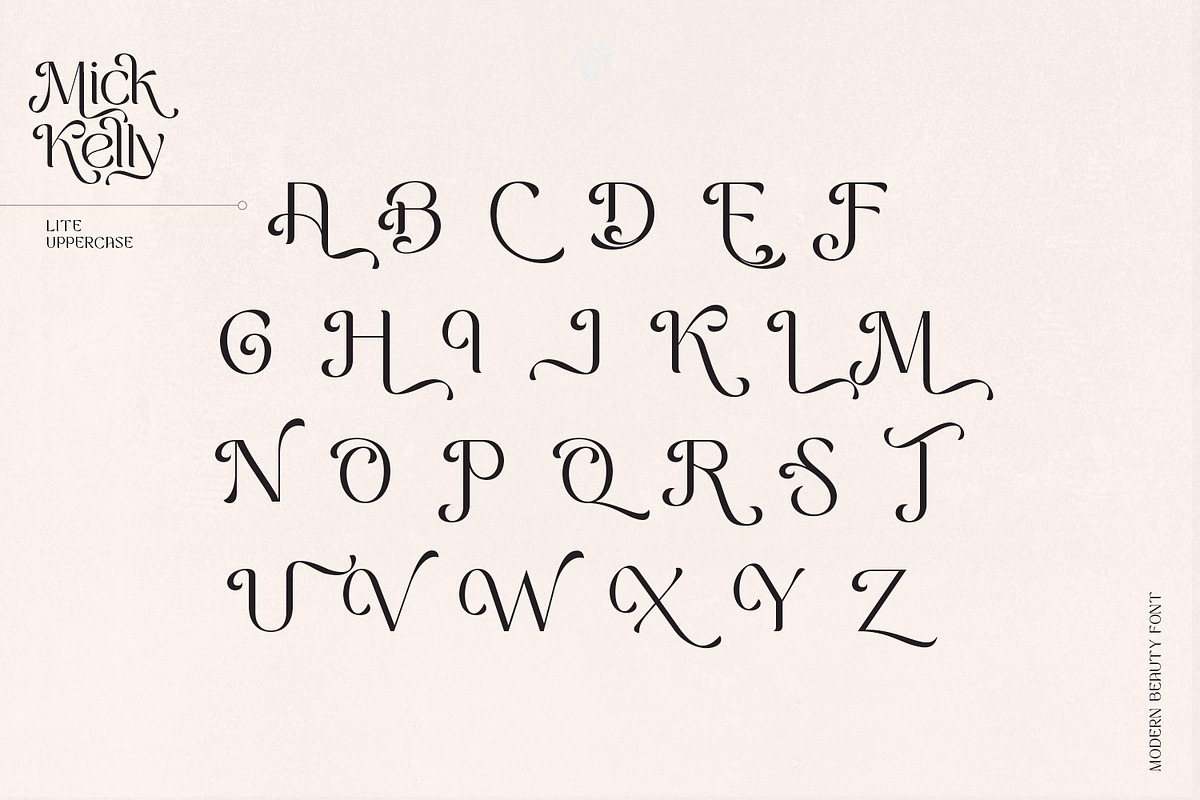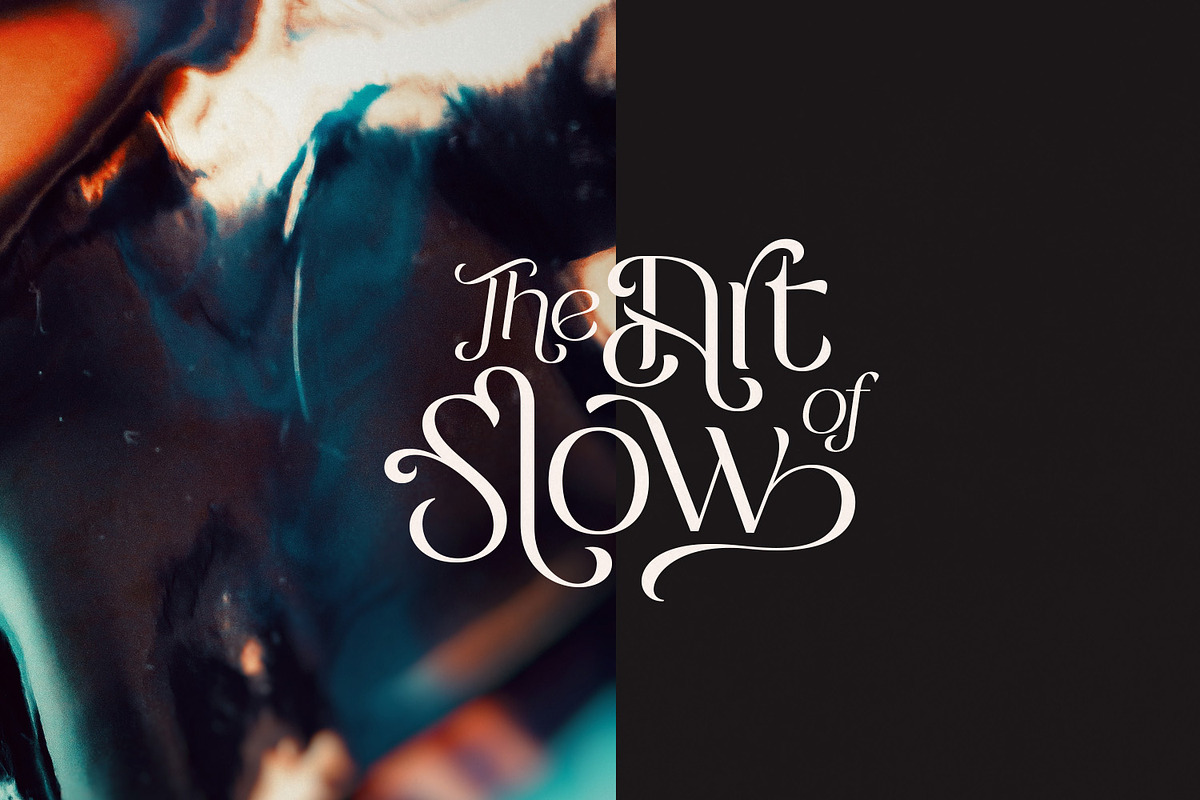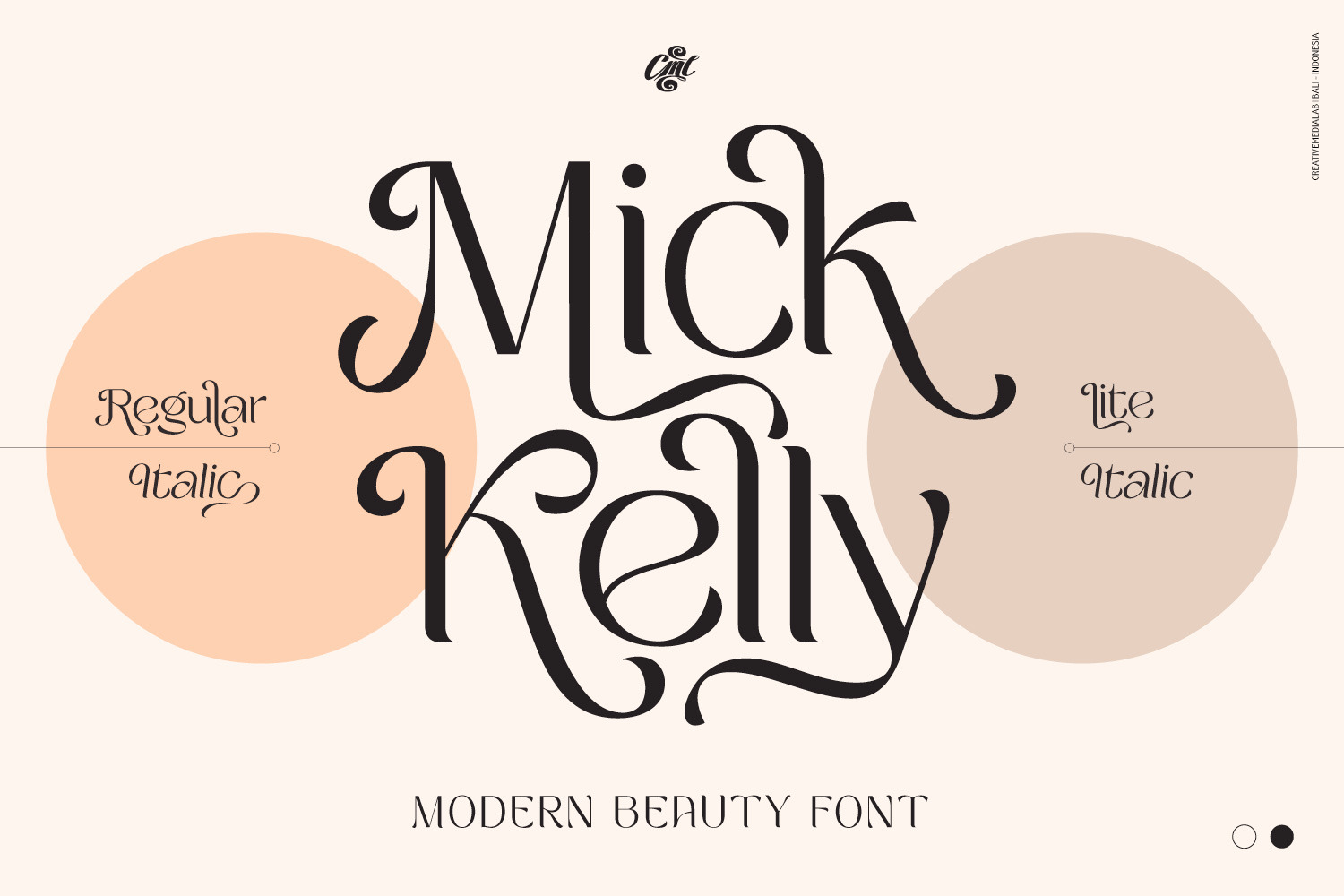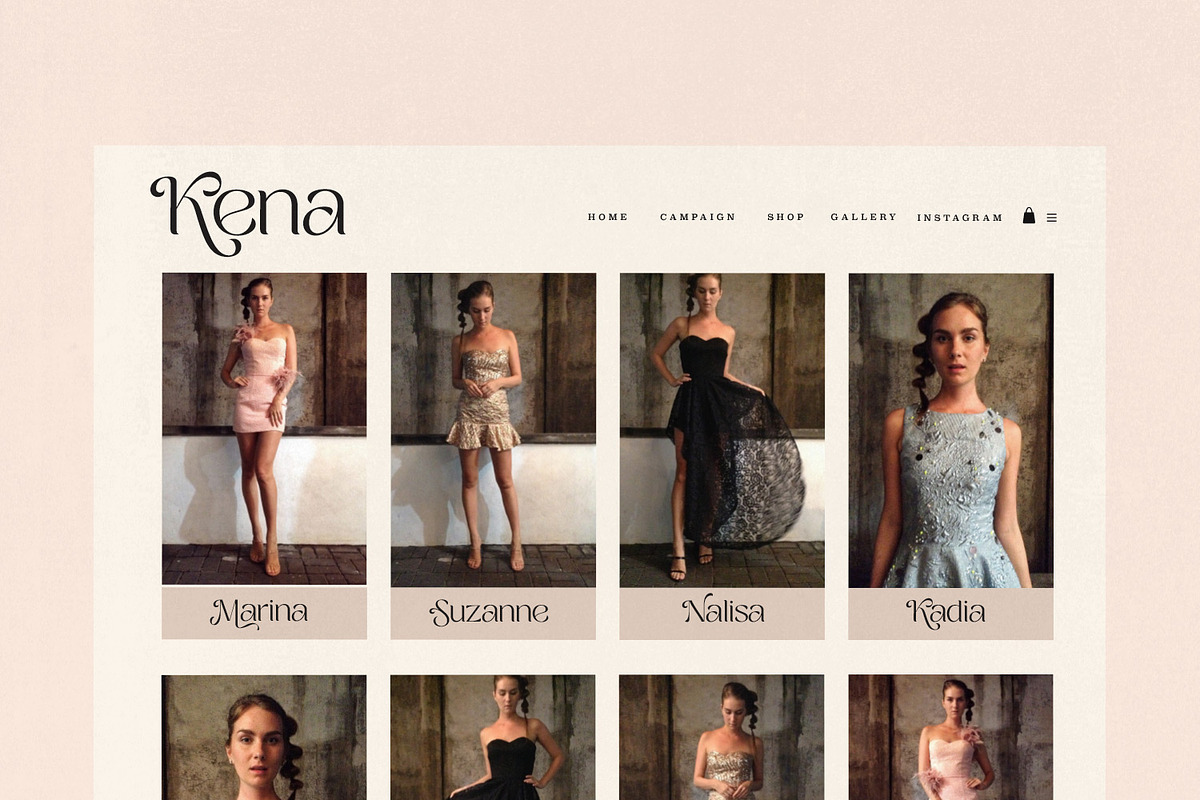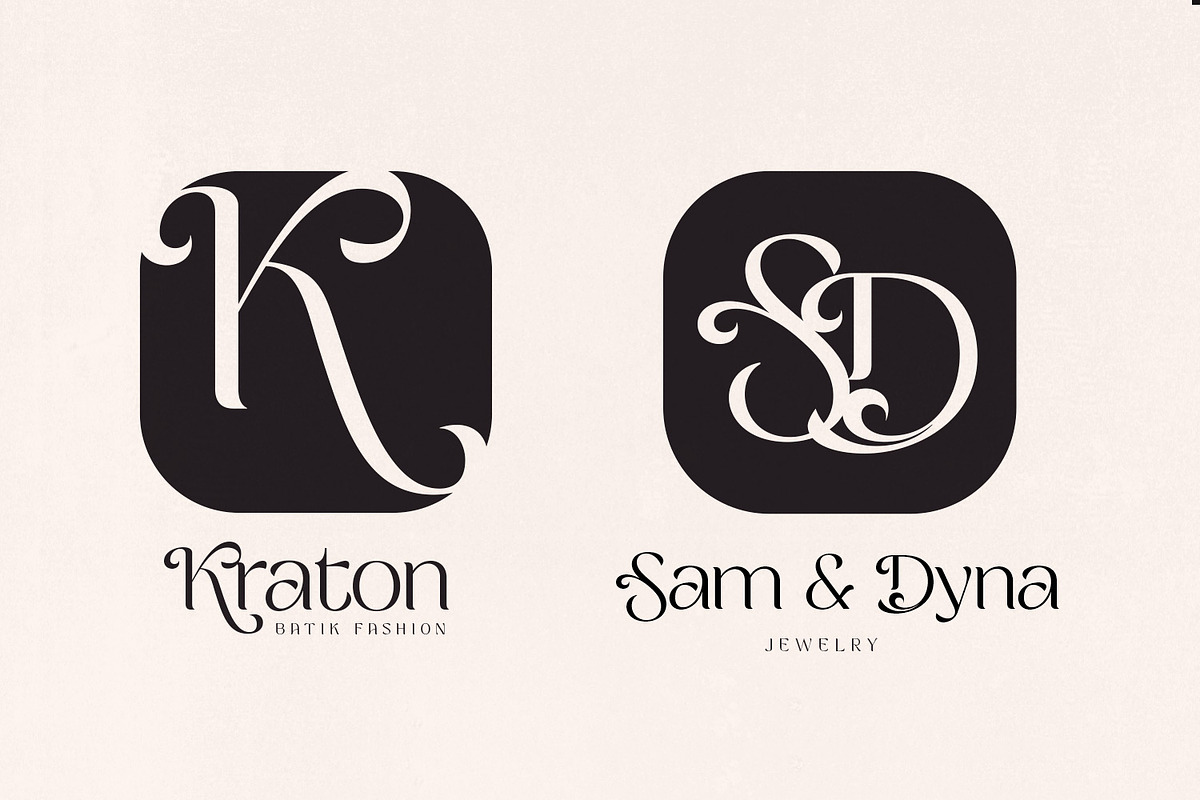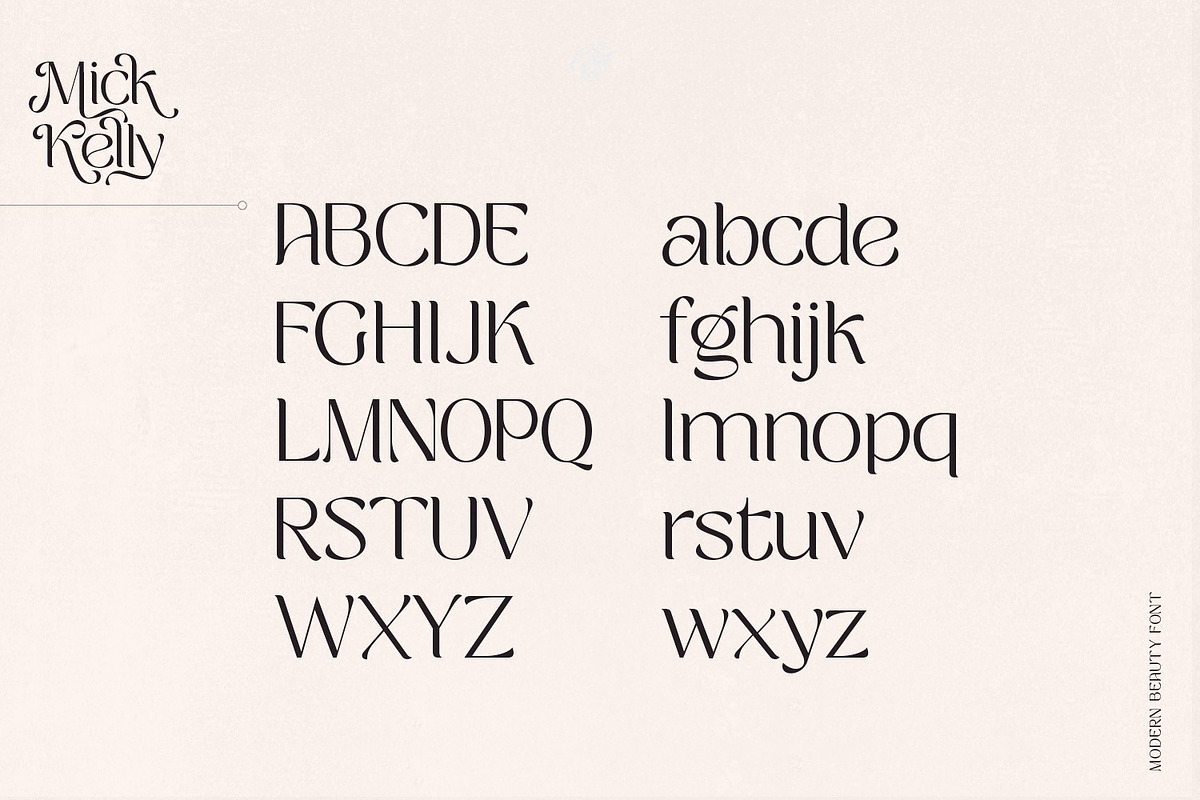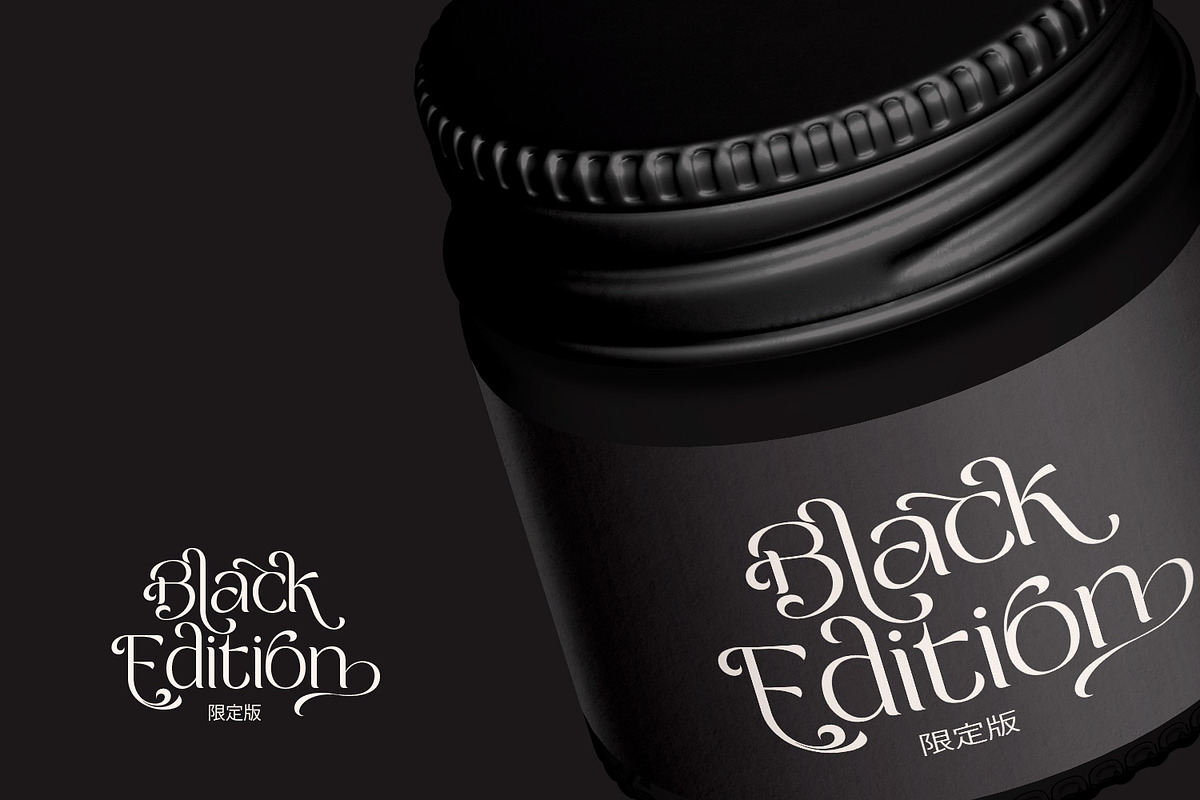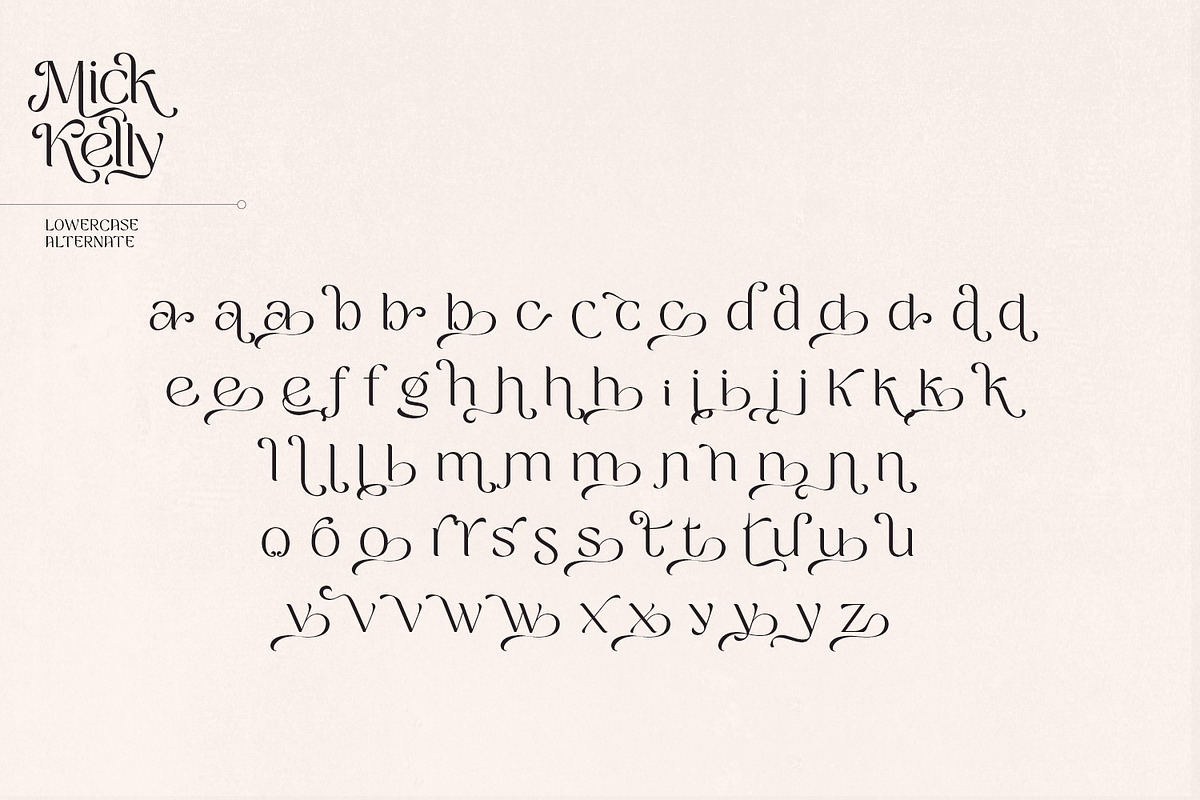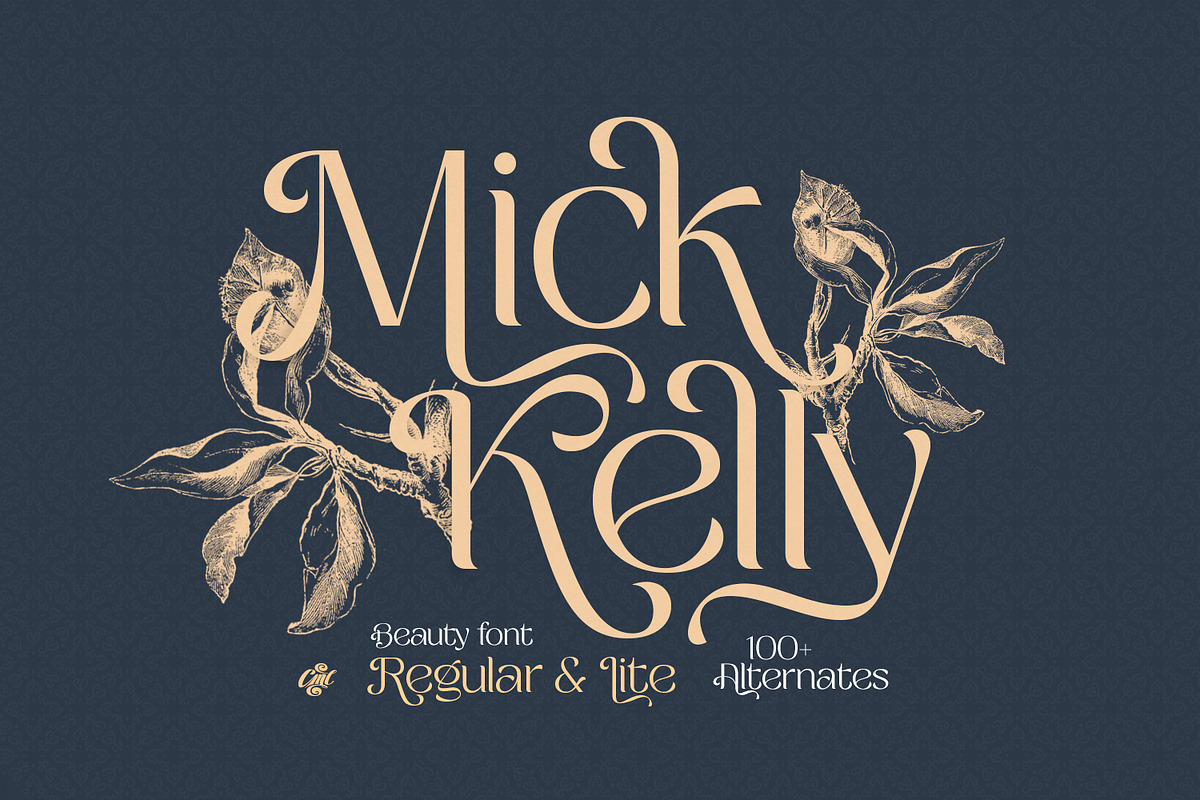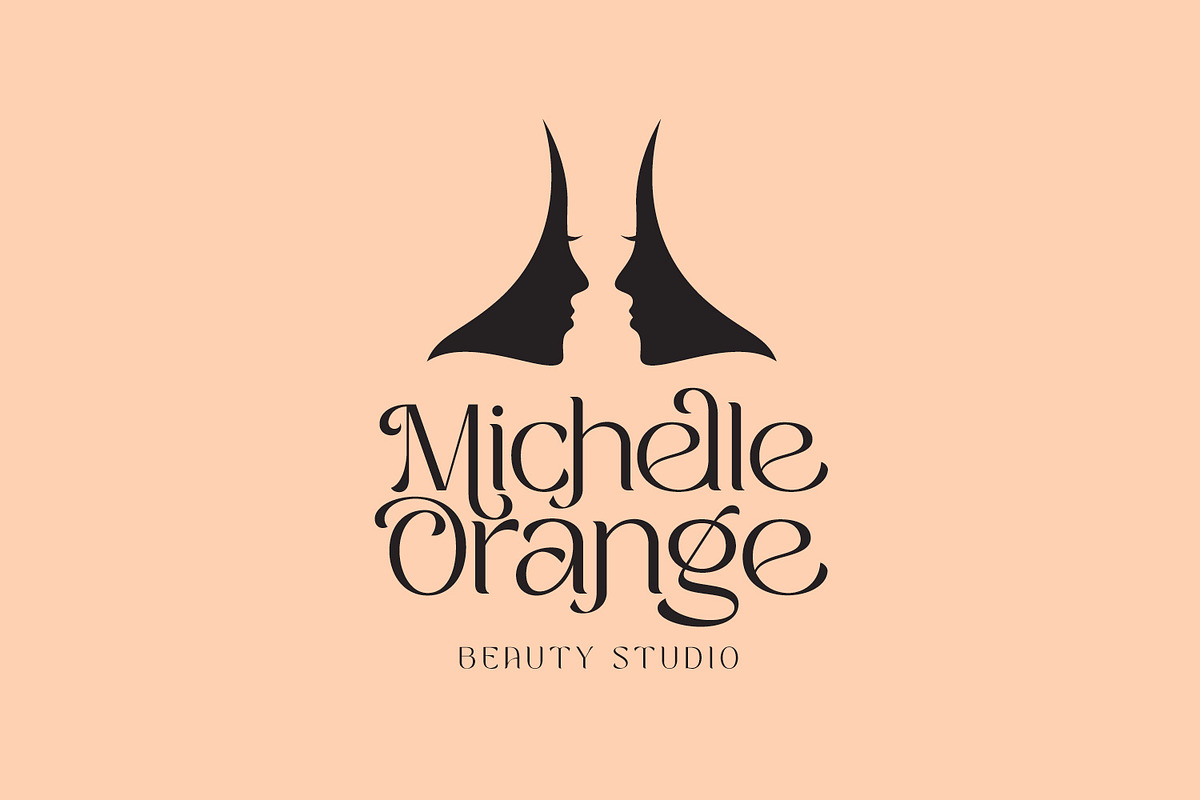
Mick Kelly - Beauty font
Mick Kelly a beauty serif with a lot of unique and beautiful alternate characters that you can combine to get beautiful final lettering with nice and dynamic shapes just in seconds!
Mick Kelly Lite is the lite version of Mick Kelly Regular, for this style, changes only on uppercase, we removed the alternates to reduce the file size, it will load faster on your webpage when you're using this font for heading text, products title or using applications that do not support OpenType features, it's very easy to make beautiful words just by typing and tada.. you're done.